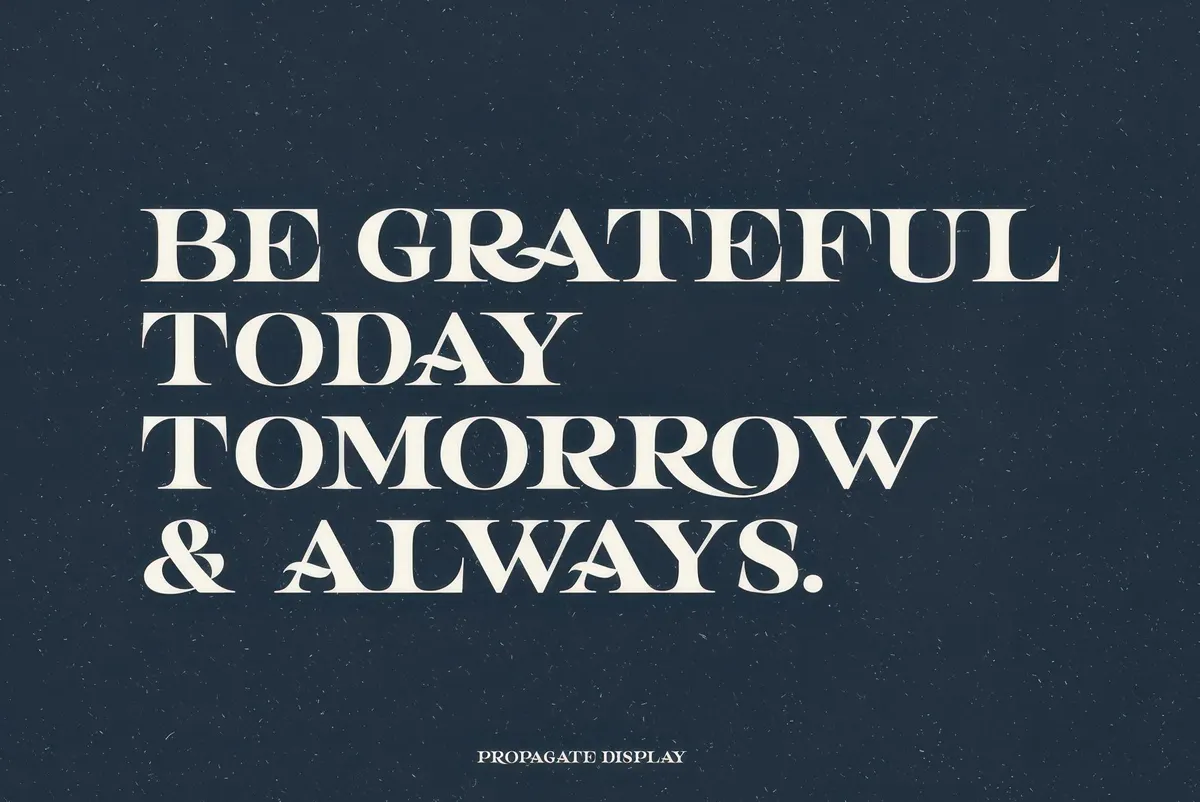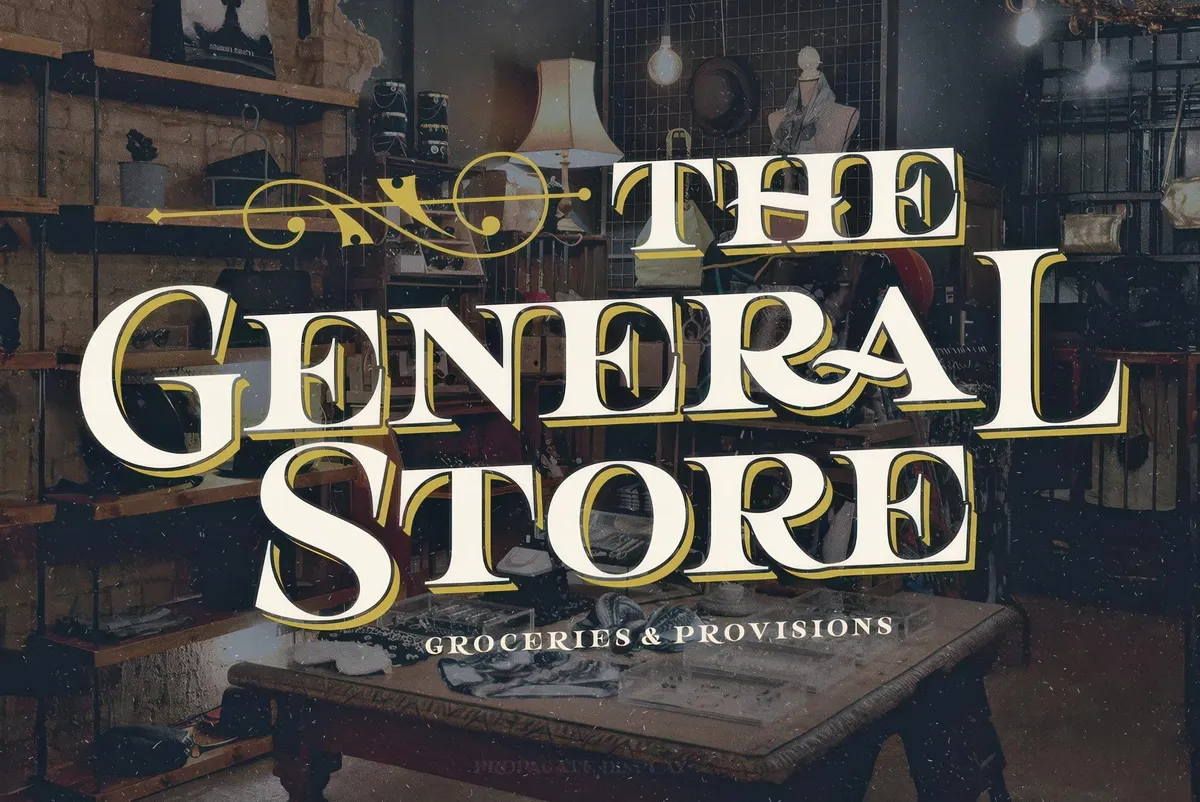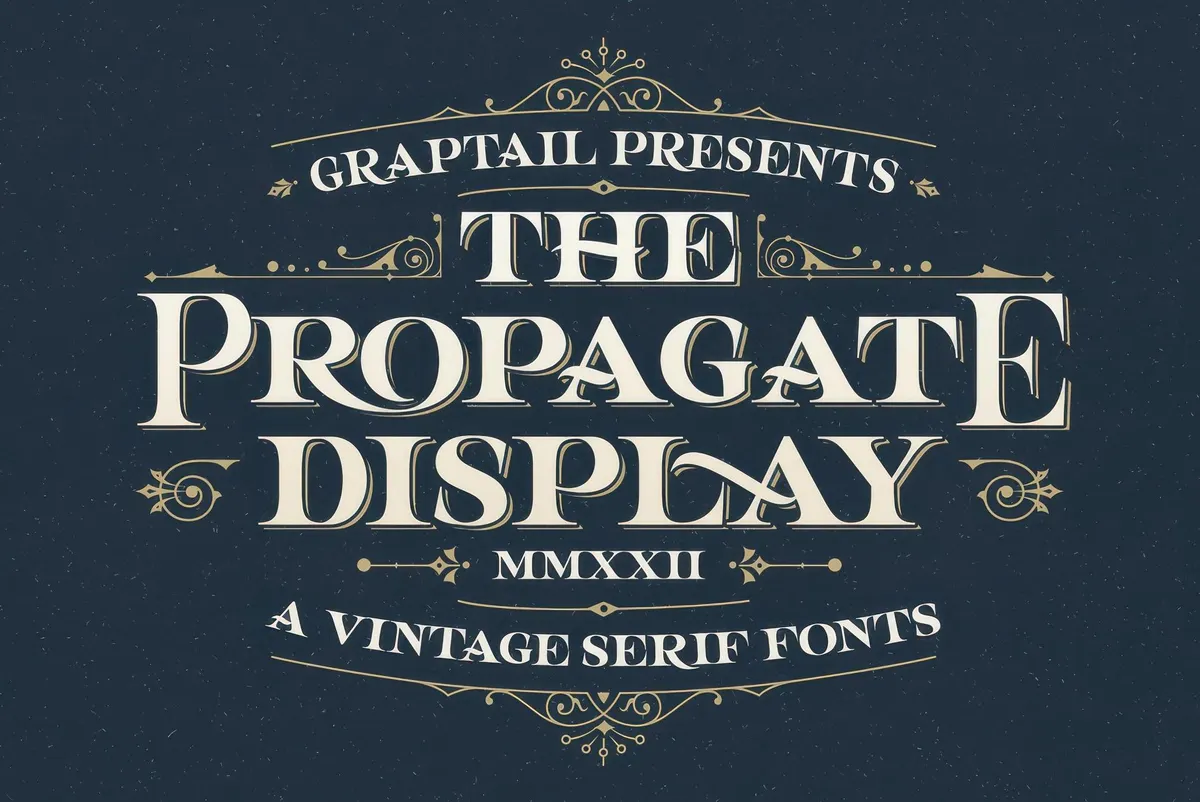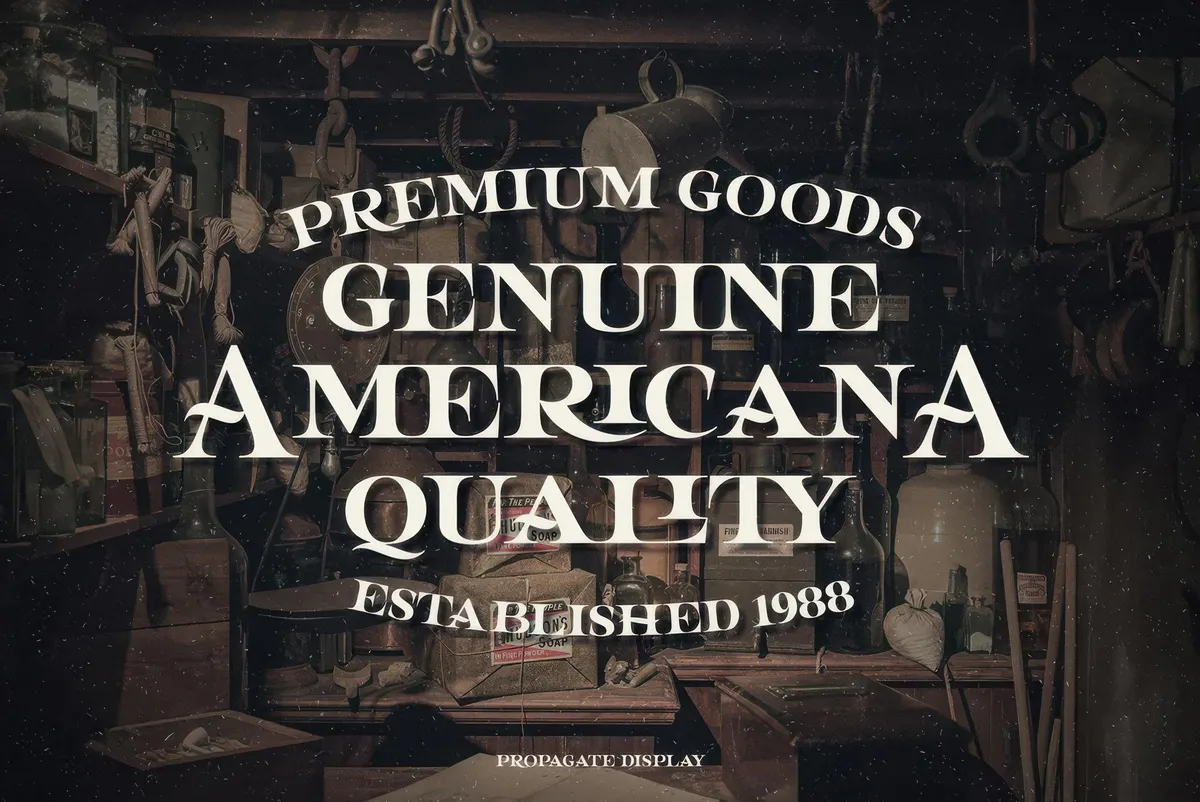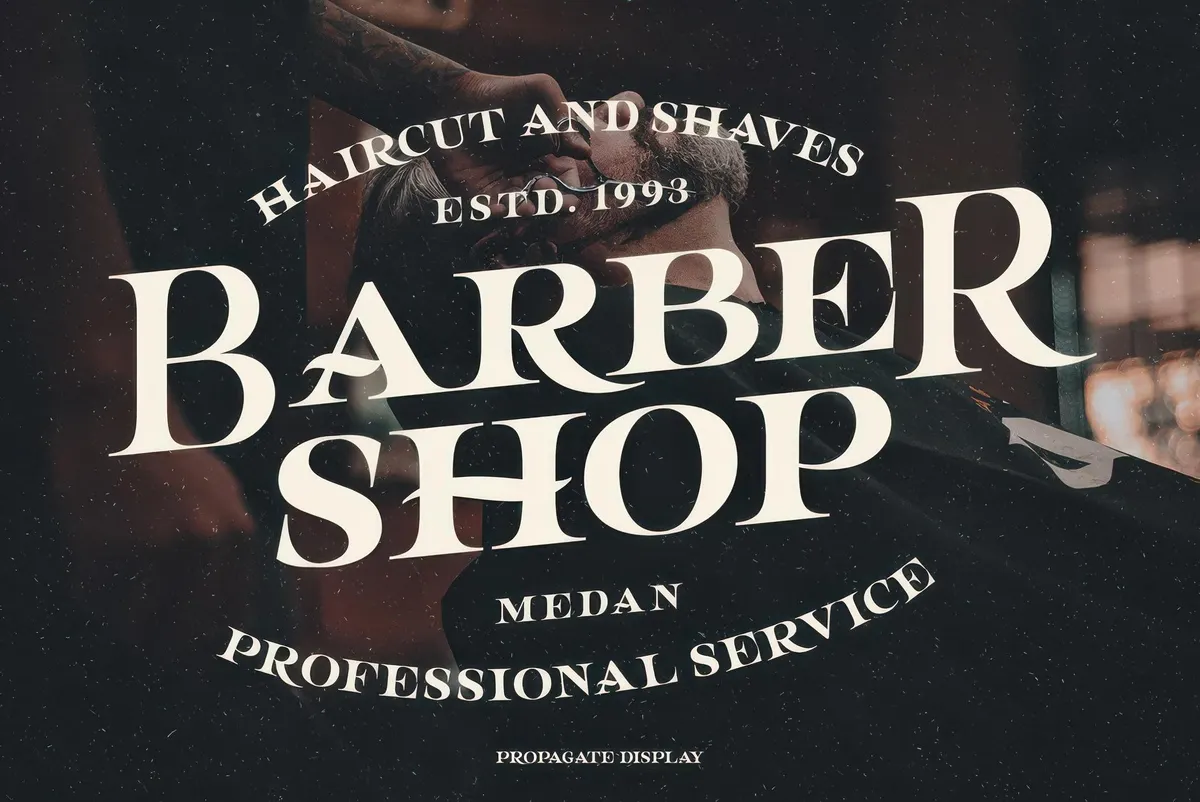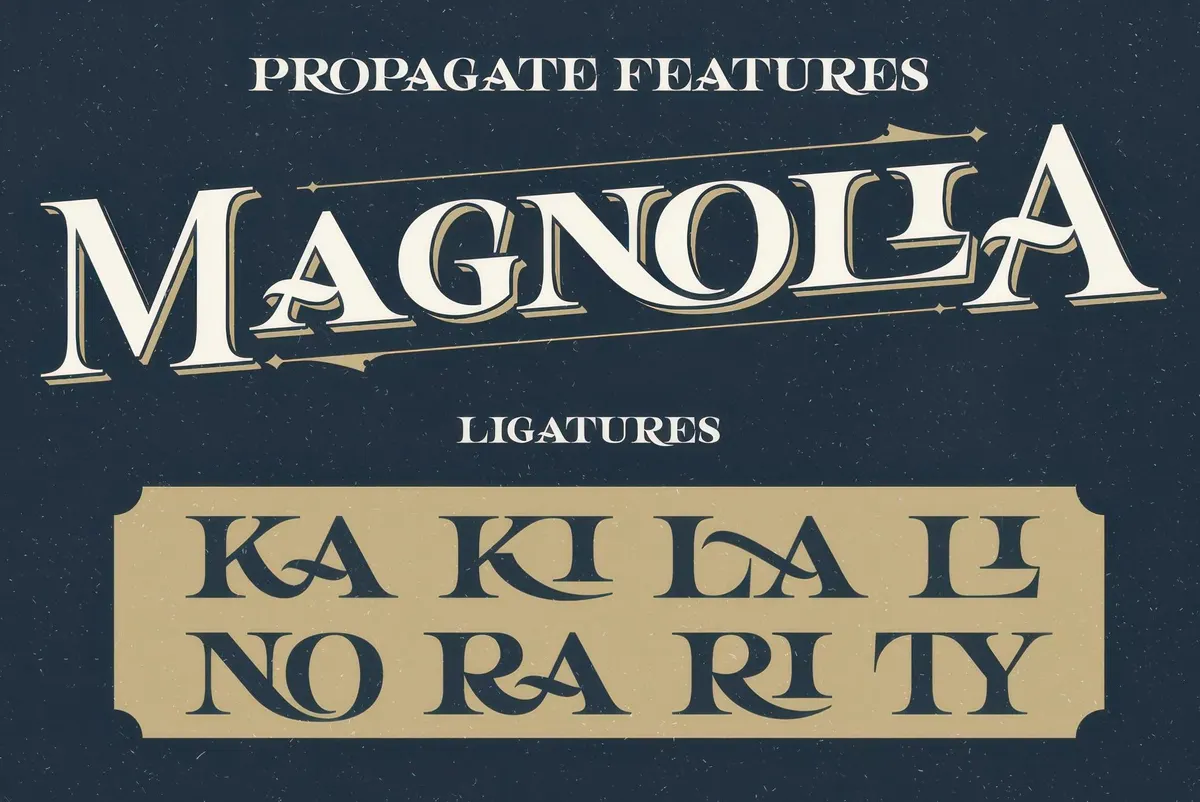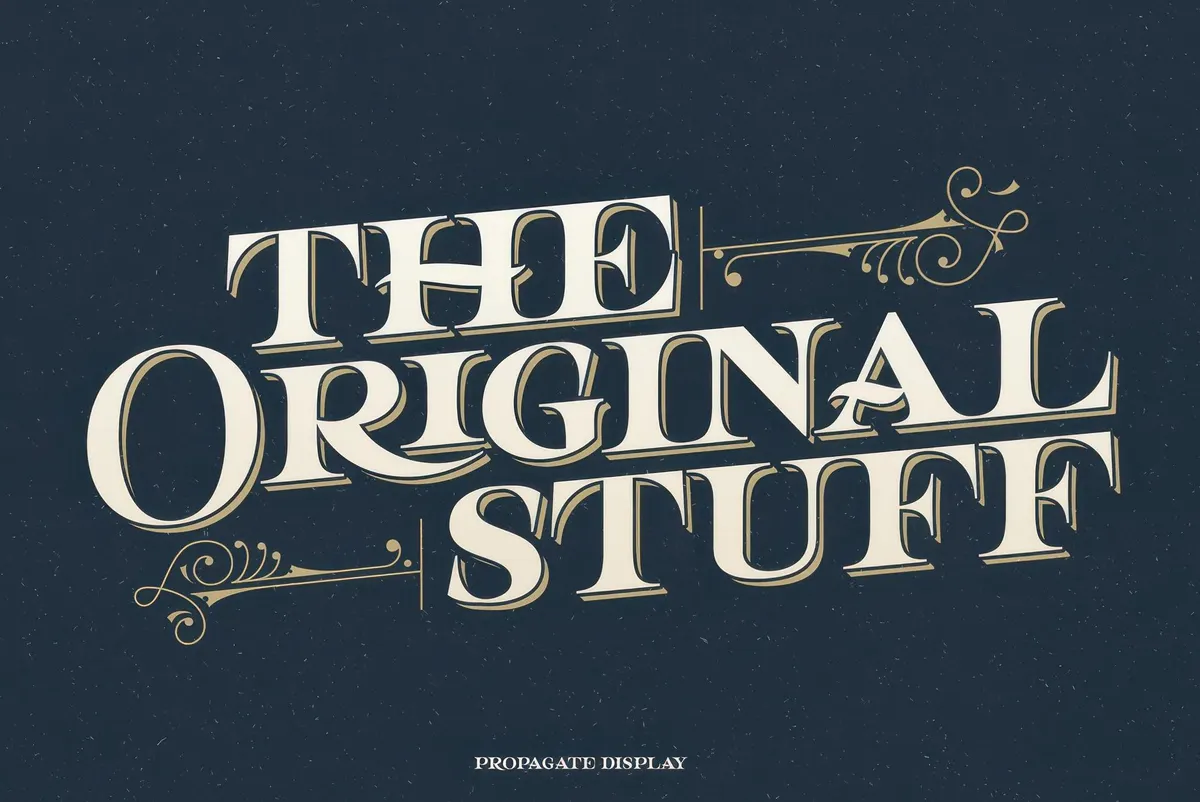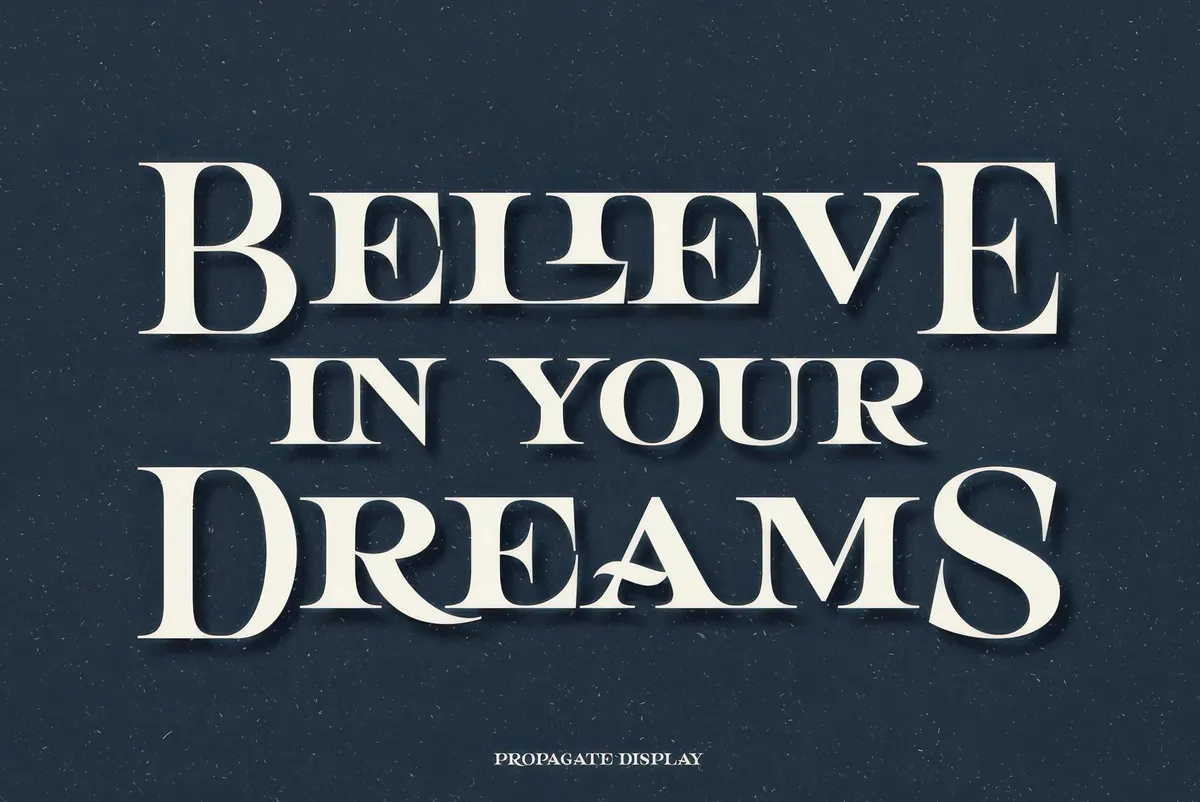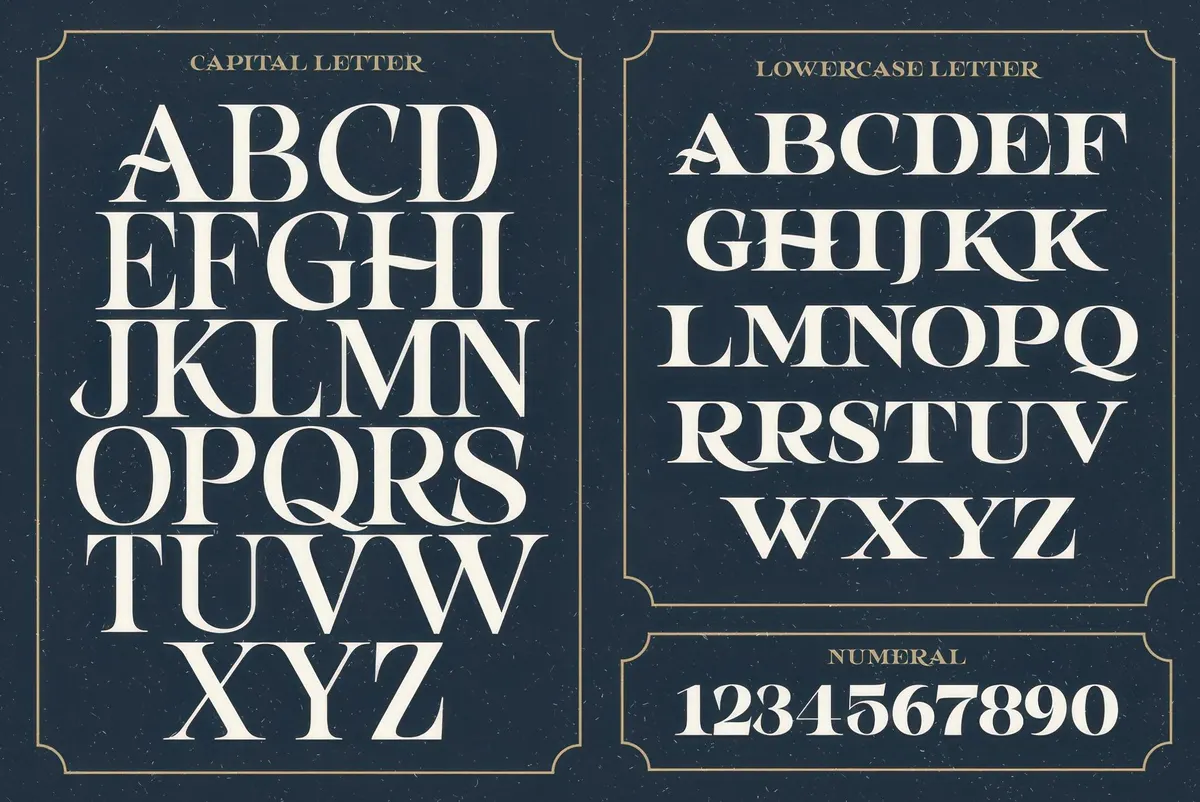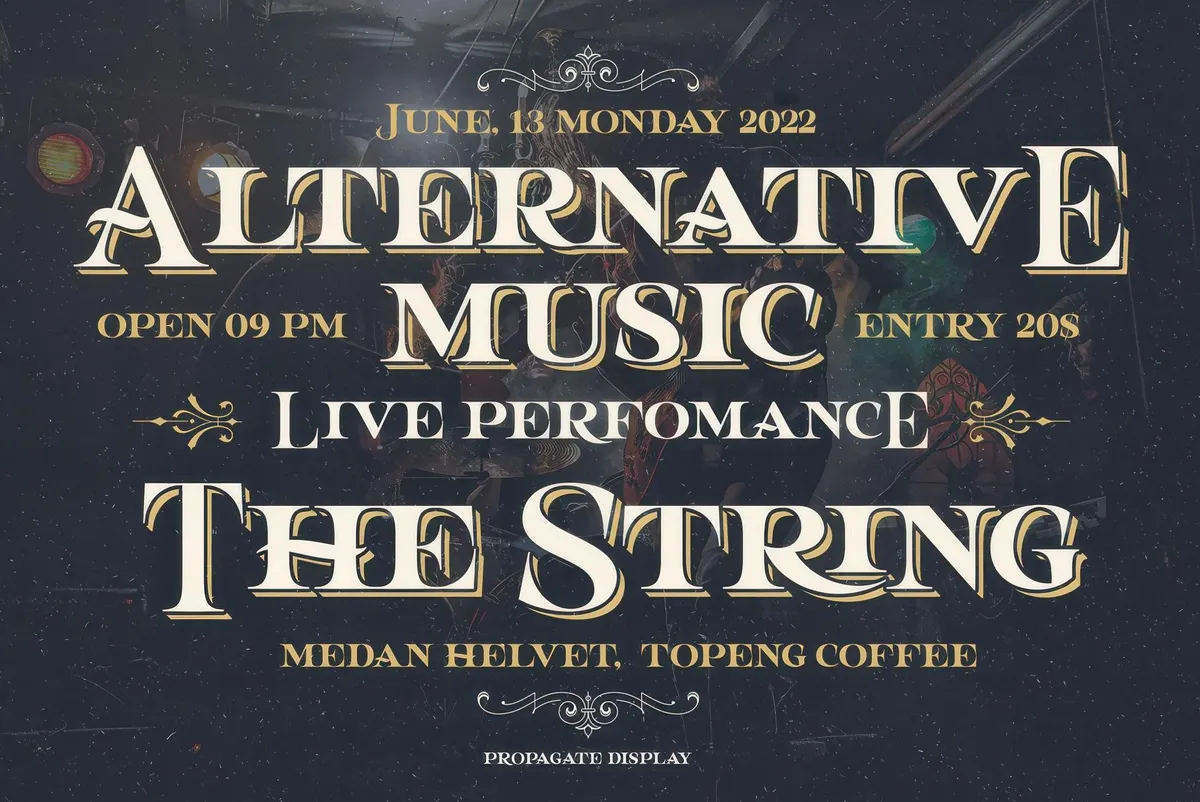
Propagate — Vintage Serif
Imagine yourself dressed in Victorian clothes, ready to open the doors to your very own “Old Bleak Shop of Stuff” (because who doesn’t love a nod to British comedy?). What would the sign above your shop look like? Bet it would be typed in Propagate.
Handcrafted with the truest admiration for the classic posters, this vintage serif font brings that nostalgic charm right to your fingertips. Propagate invites you to turn back the clock, without losing any of that contemporary convenience. The set of glyphs has everything you need and a bit more — uppercase, lowercase, numerals, and punctuations, plus a delightful array of OpenType alternates, ligatures, and swashes . Logos, letterheads, posters, or even vintage-inspired apparel. It seems tailor-made for this exact project whenever you place it.